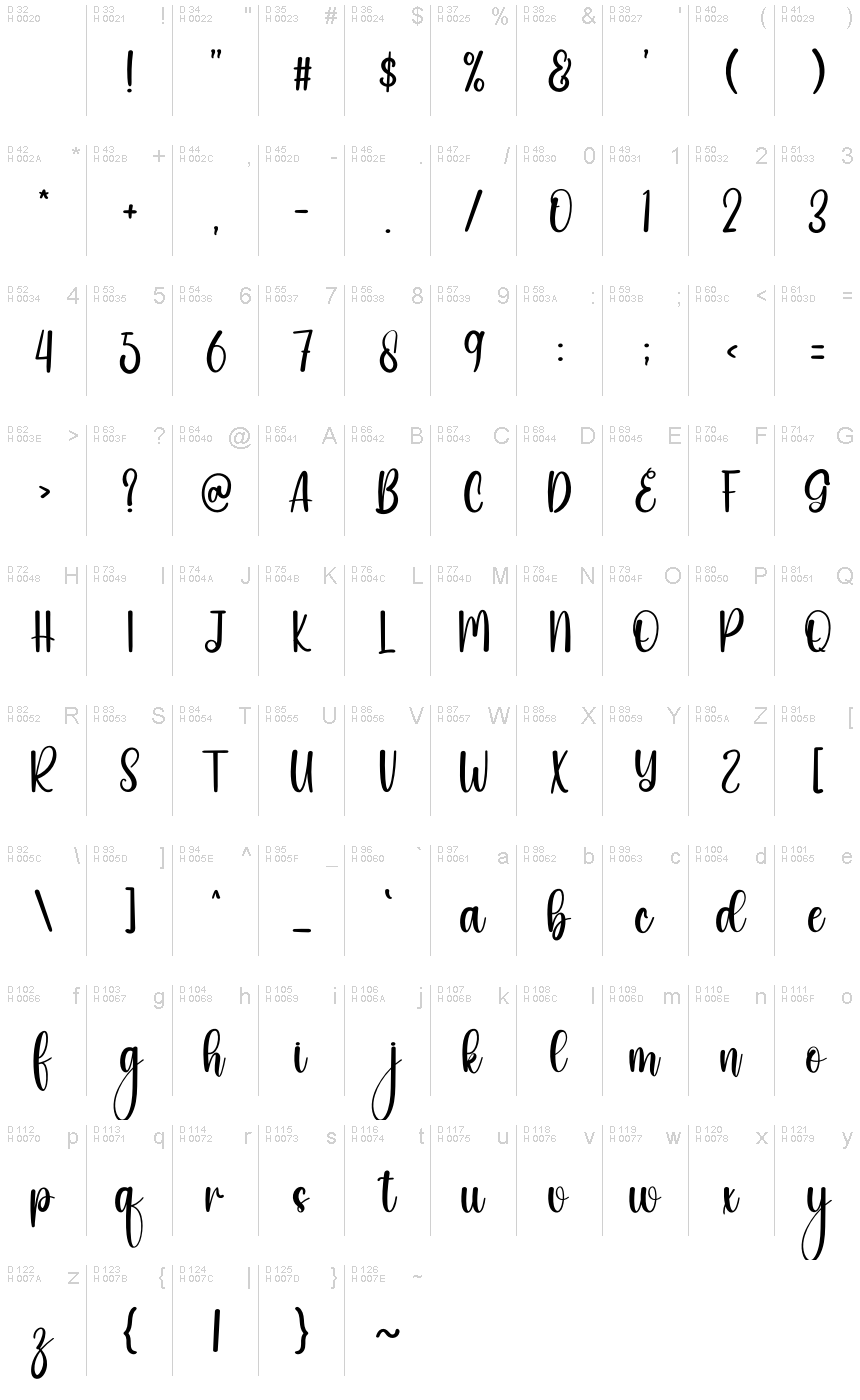
Shimbi
Shimbi, designed by PiPi Creative, is a distinctive handwritten font that captures the eye with its elegant and fluid strokes. This condensed font exudes a sense of sophistication and warmth, making it perfect for projects that require an intimate and personal touch. The unique character shapes and condensed width create a visual rhythm that is both playful and polished.
Shimbi's effortless blend of style and readability makes it an ideal choice for a variety of design contexts, from branding elements to wedding invitations, social media graphics to editorial designs. Its handwritten charm can effortlessly bring a personalized feel to any project.